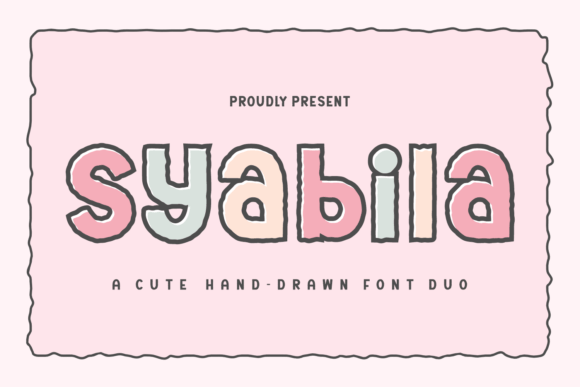
Unleash your inner creative flair with Syabila Font, a vibrant symphony of colors and playful shapes that will ignite your designs. Step into a world of boundless possibilities, where your imagination takes flight and your projects come alive with an explosion of colors and playful flair.
Syabila Font is not just a display font; it's a gateway to a captivating world of visual expression. Crafted with meticulous attention to detail by Faris (7NTypes), this font is a visual masterpiece that will transform your branding, advertising, and countless projects into captivating works of art.
Indulge in the whimsical charm of Syabila Font, where every stroke of color and unique shape beckons you to explore the limitless realms of creativity. Its bold and playful design commands attention, while its vibrant hues and enchanting shapes infuse your creations with an irresistible touch of whimsy.
With Syabila Font, the ordinary becomes extraordinary. Let your imagination soar as you craft eye-catching logos that demand attention and create marketing materials that ignite your brand's personality. Its versatility knows no bounds, making it the perfect companion for social media designs, website banners, and any project that craves a dash of color and creative flair.